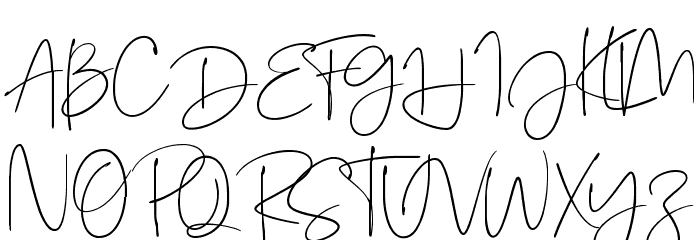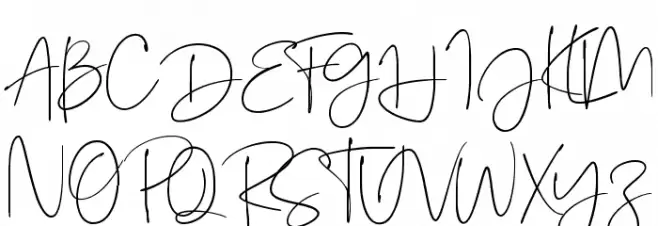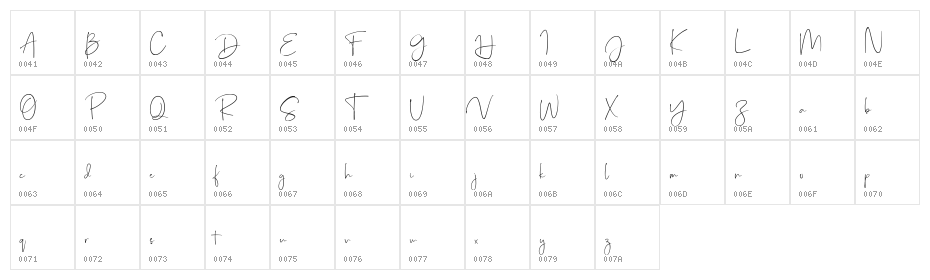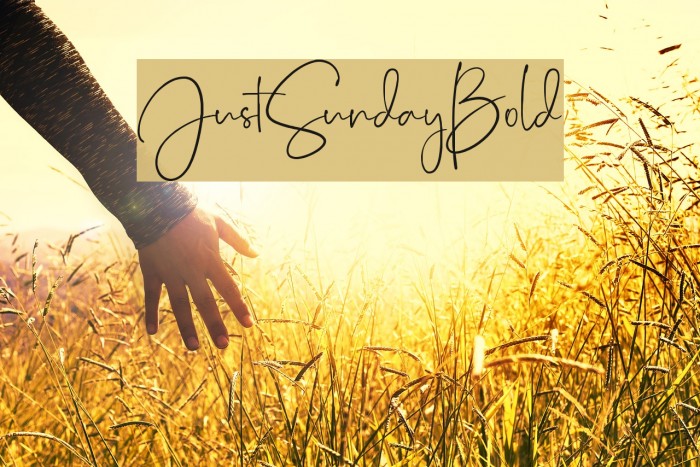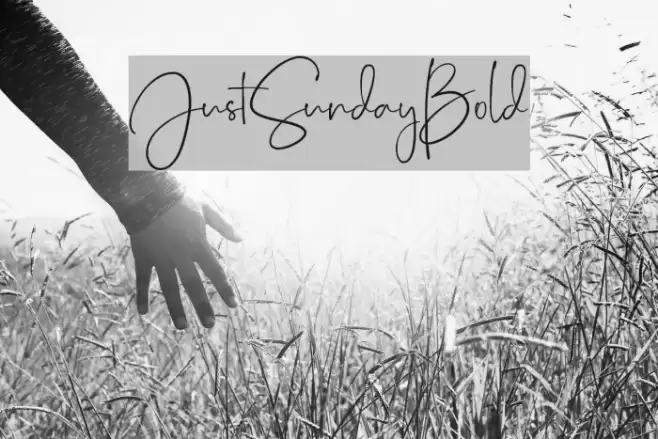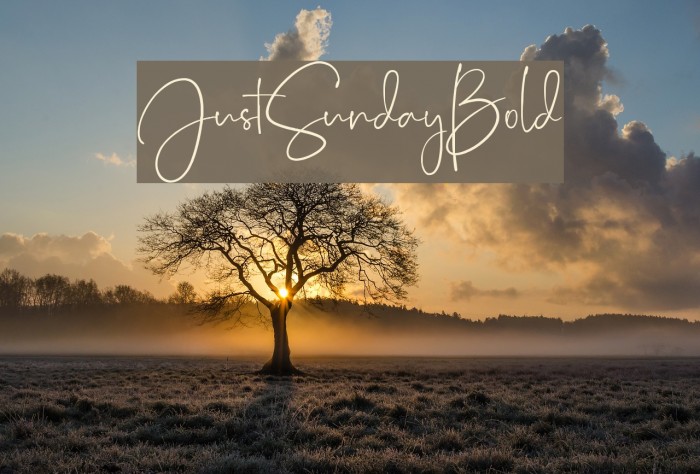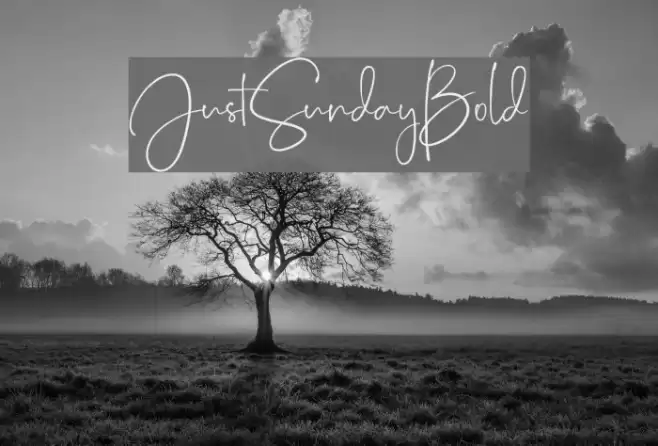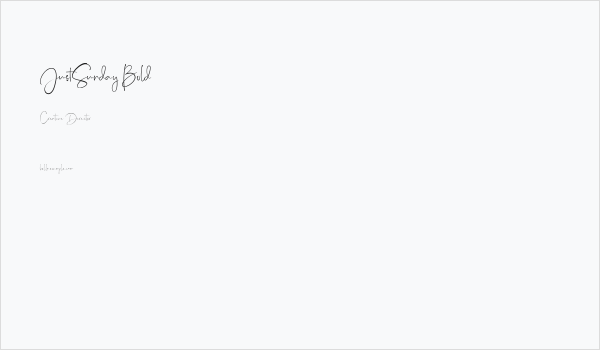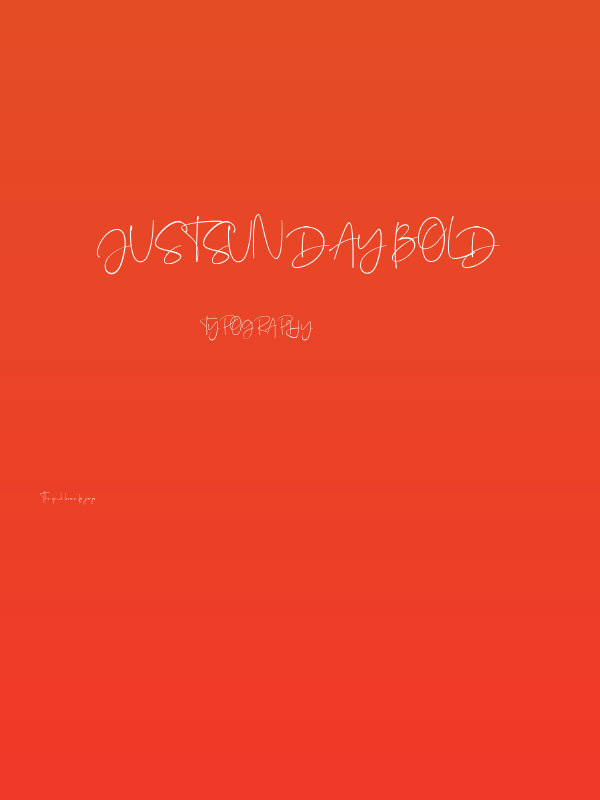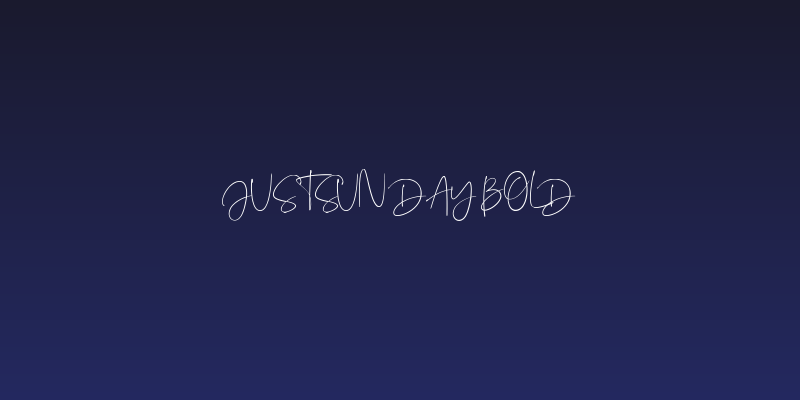
JustSunday-Bold Font
JustSunday-Bold Description
This font features a unique and expressive handwritten style, characterized by its flowing, cursive strokes and playful loops. The uppercase letters are bold and dynamic, with a sense of movement and energy, while the lowercase letters maintain a consistent, elegant flow. The numbers and special characters are crafted with the same attention to detail, ensuring a cohesive look throughout. The overall design is modern and artistic, making it perfect for projects that require a personal touch or a creative flair. Its distinctive style is both eye-catching and versatile, suitable for a variety of design applications.
| Use Case | Logos, Headlines, Artistic designs |
| Proposed Projects | Ideal for creative projects such as invitations, greeting cards, branding, and social media graphics. |